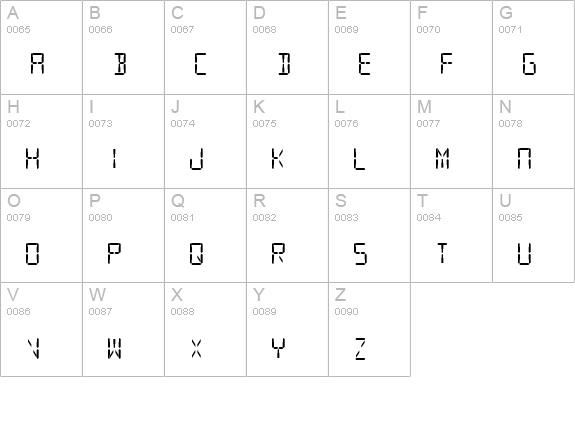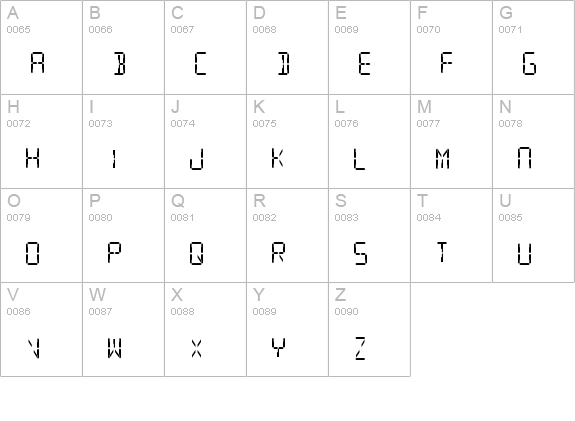
SF Digital Readout Medium Font Details
SF Digital Readout Medium is a balanced, medium-weight variant in the SF typeface family \xE2\x80\x94 well suited to sub-headlines, navigation, and balanced editorial work.
SF Digital Readout Medium is a sleek and modern font that combines the perfect blend of futuristic aesthetics and classic appeal. This font is designed to give your designs a contemporary and high-tech look, making it ideal for various projects such as website designs, app interfaces, digital displays, and more. With its clean lines and sharp edges, SF Digital Readout Medium is a versatile font that can effortlessly elevate the visual impact of any text. Whether you're creating a gaming logo, a technology-themed poster, or a cutting-edge advertisement, this font is sure to captivate your audience. What makes SF Digital Readout Medium even more appealing is that it is available for free! Yes, you read that right. This incredible font can be freely downloaded at FontsMarket.com, allowing you to enhance your designs without breaking the bank. It's a fantastic opportunity to access a high-quality font that will take your creative projects to the next level. The versatility of SF Digital Readout Medium extends beyond its aesthetic appeal. It offers excellent legibility, making it an excellent choice for both small and large text sizes. The characters are carefully crafted to ensure clarity and readability, even in challenging digital environments. So, whether you're designing a sleek user interface or creating captivating digital art, SF Digital Readout Medium is the perfect font to add a touch of modernity and sophistication. Download it for free at FontsMarket.com and let your creativity soar to new heights!